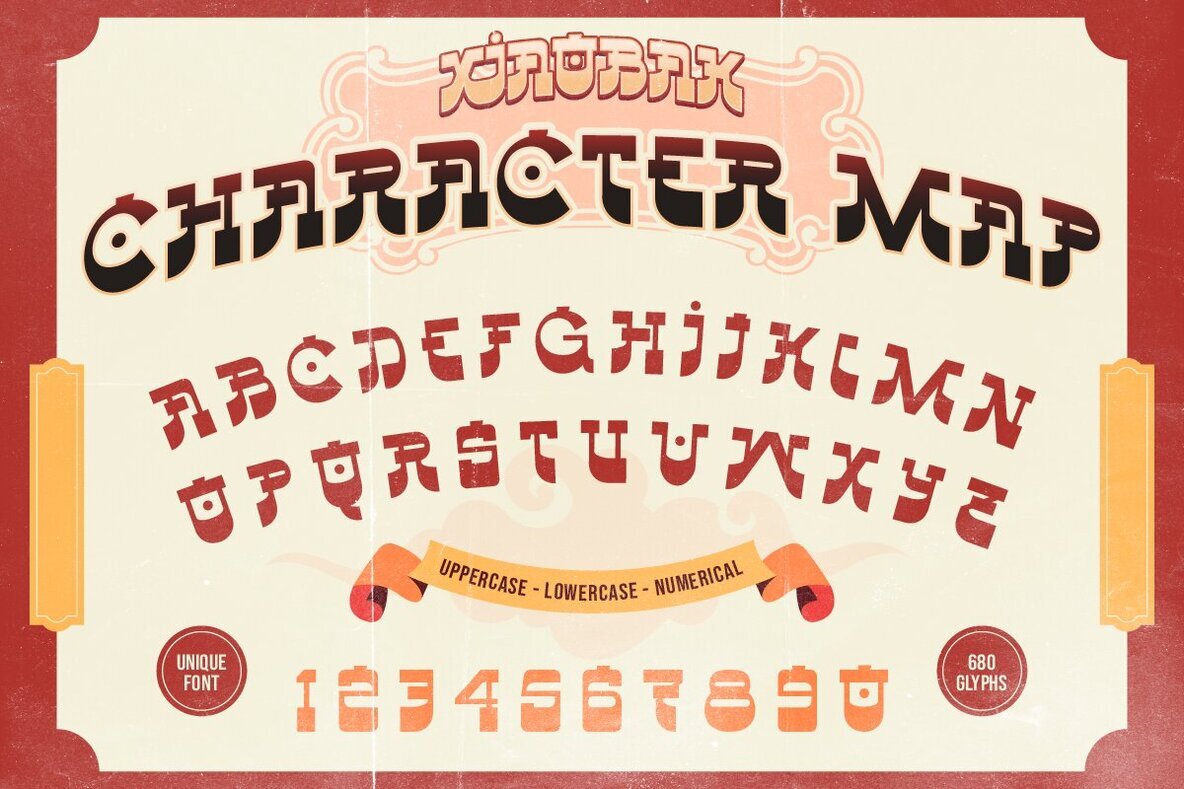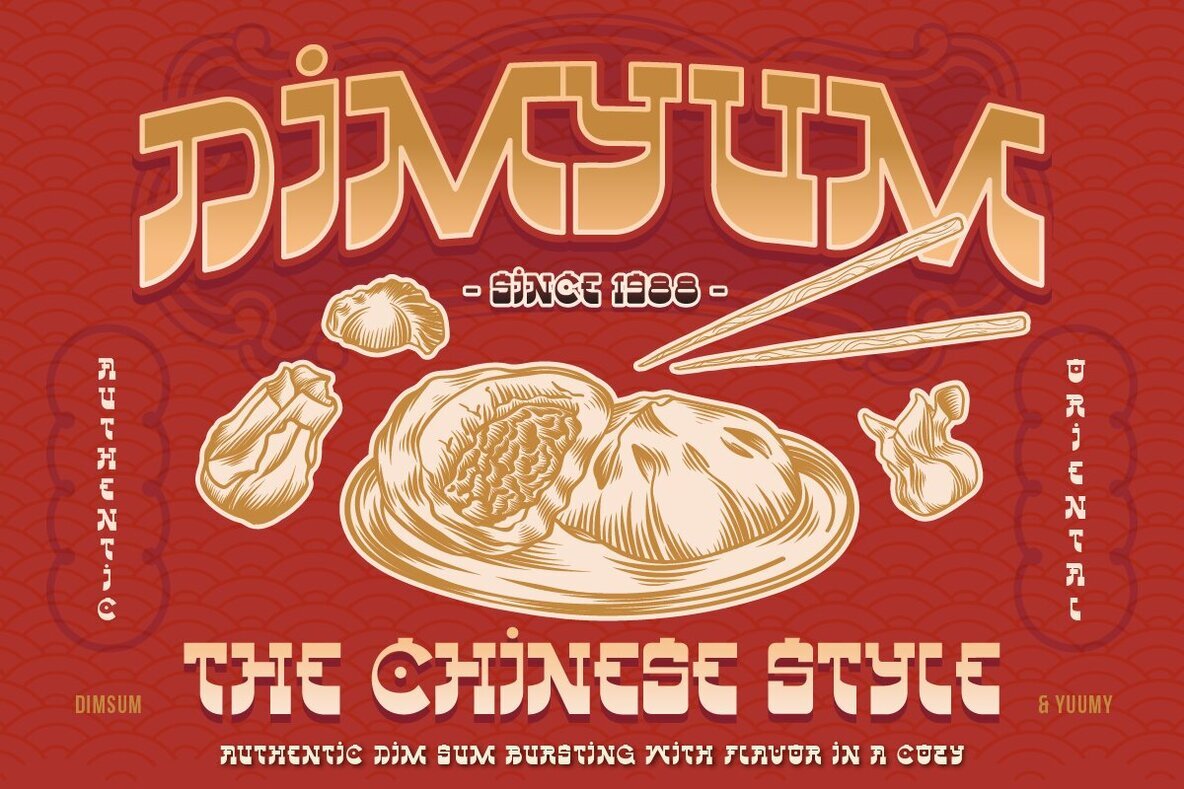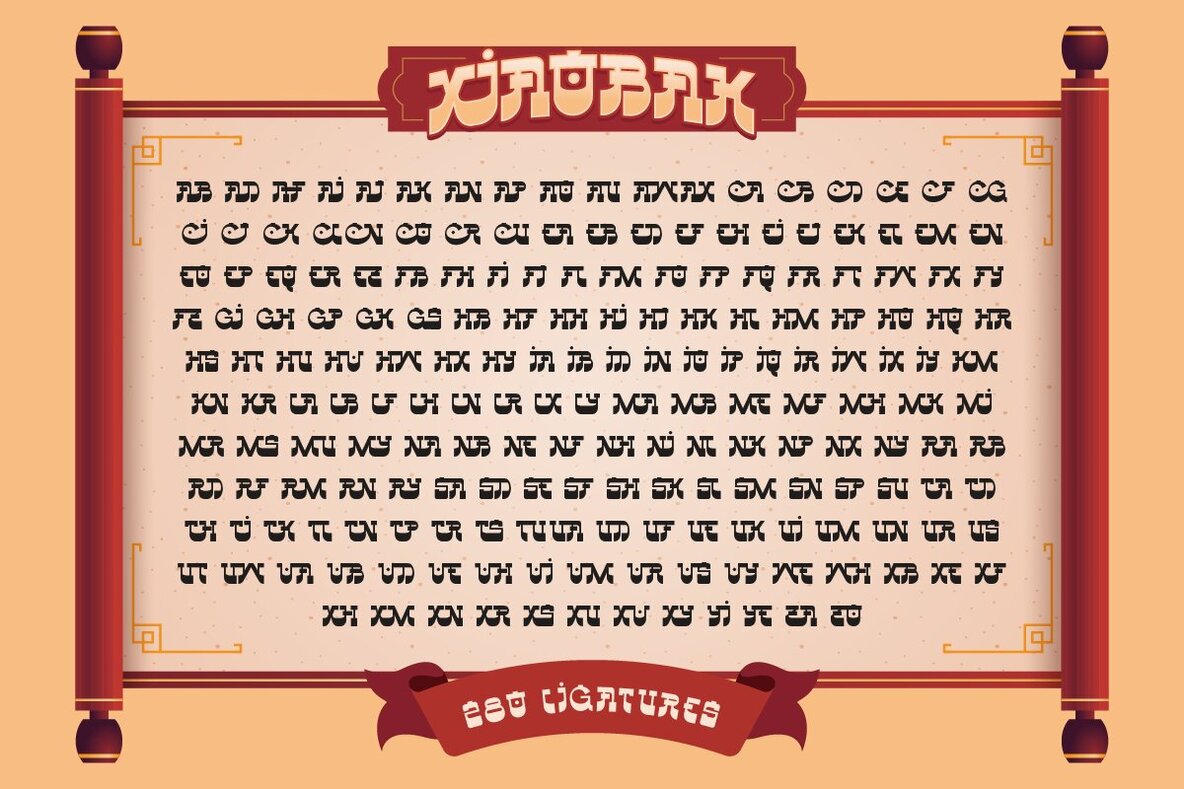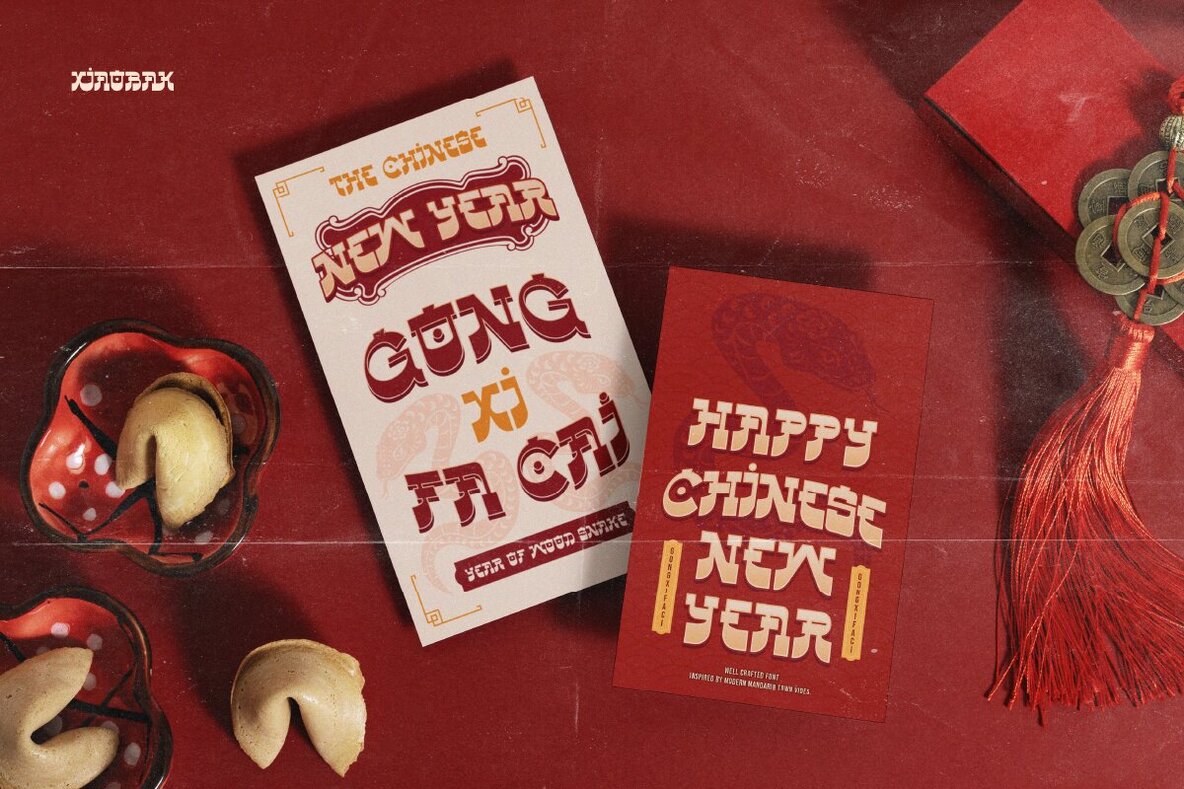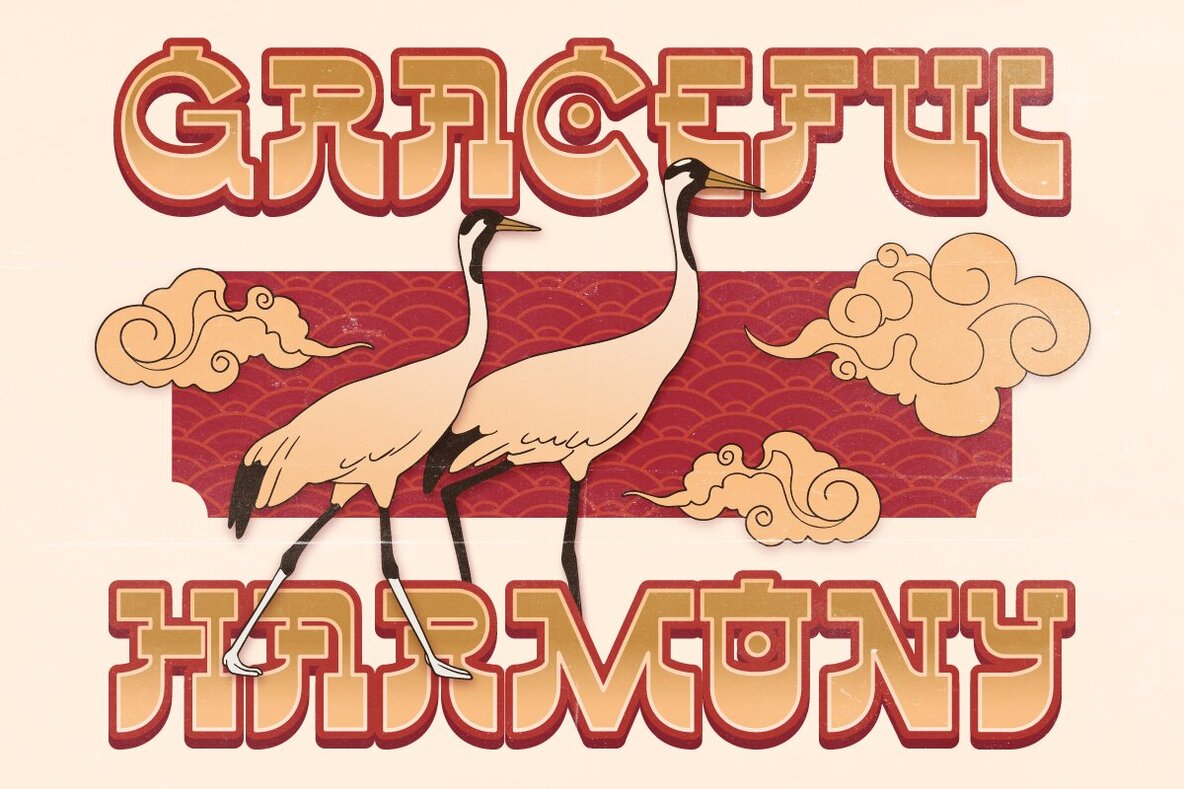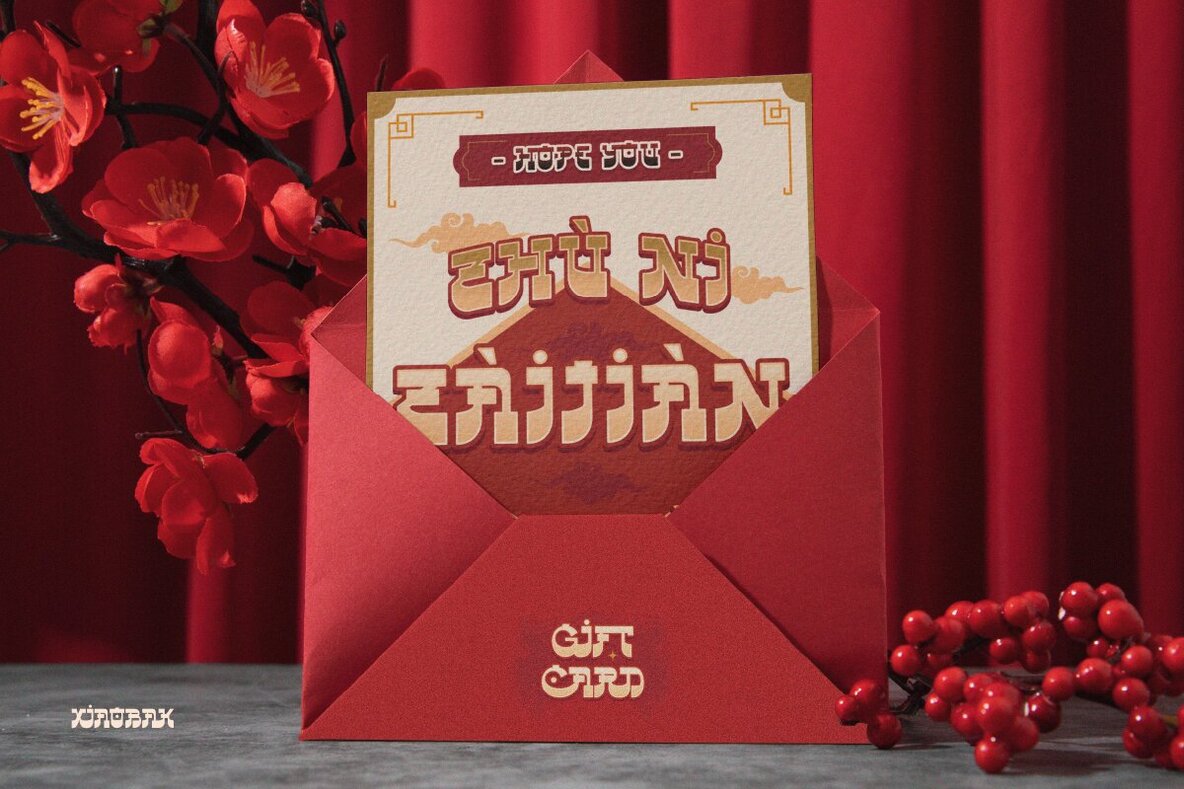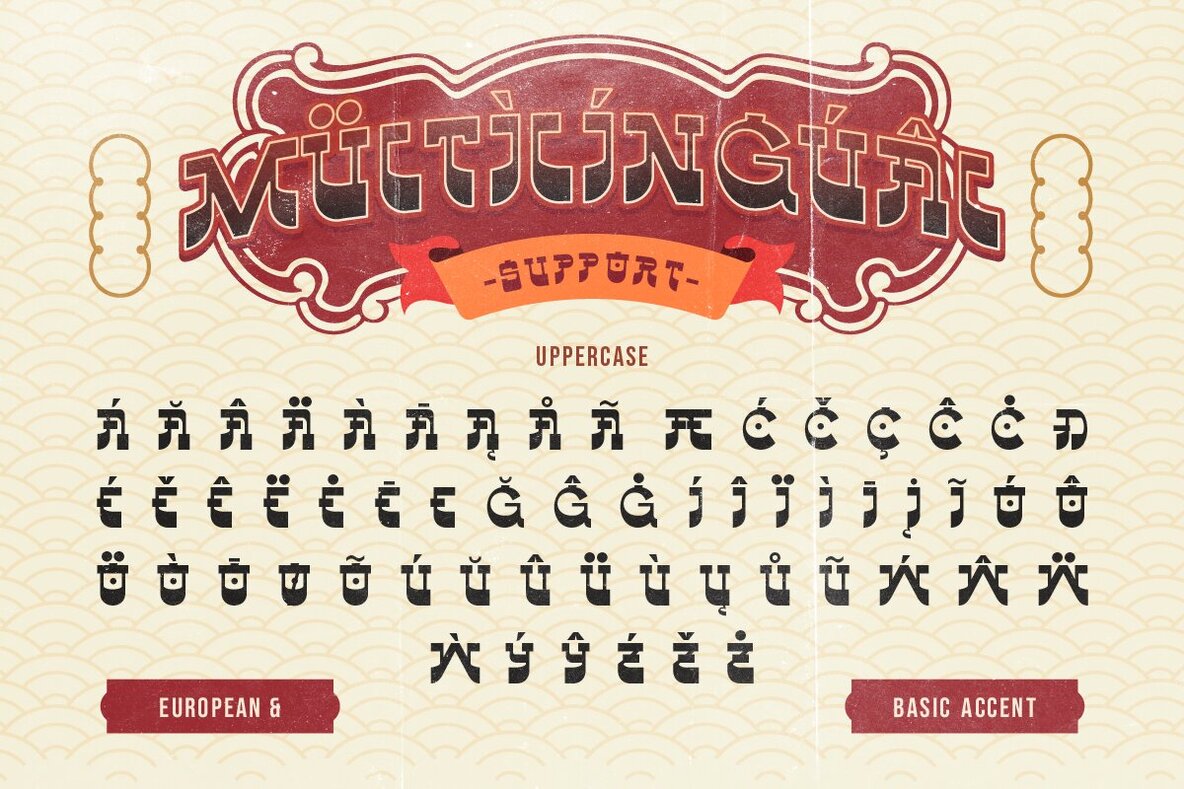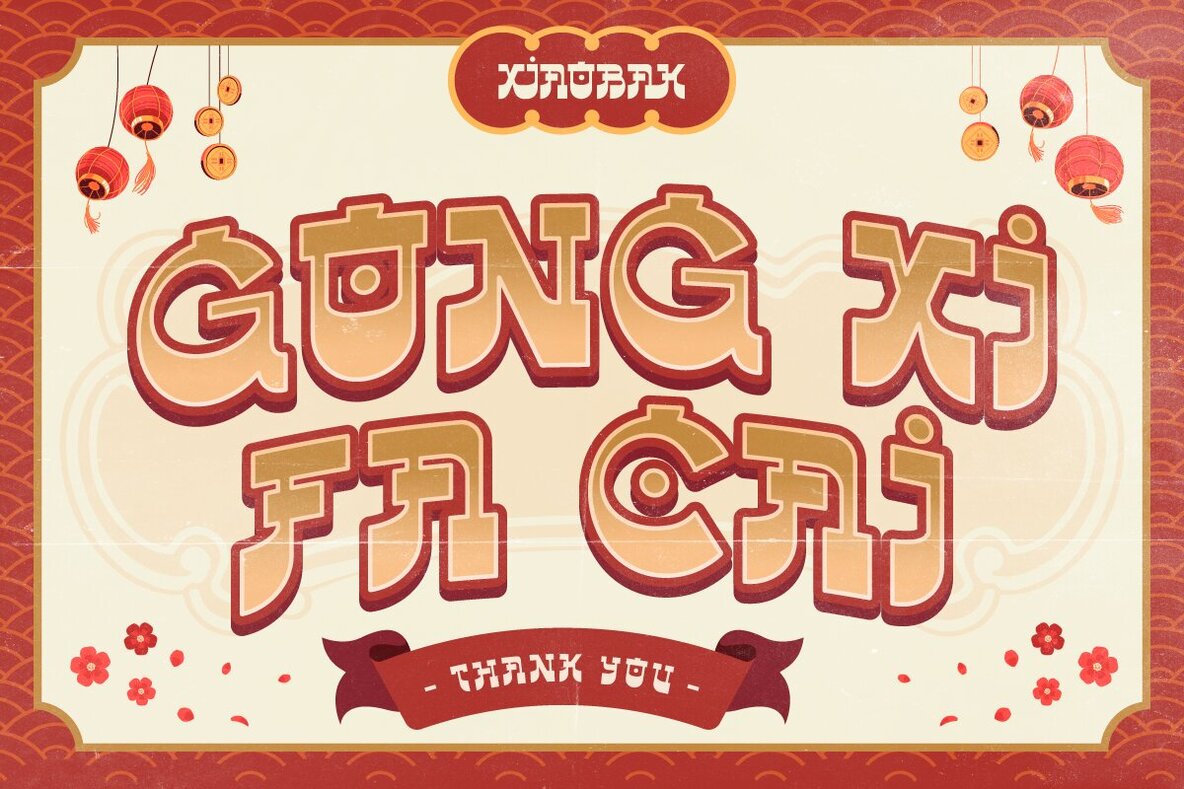
Xiaobak Font
Xiaobak Regular
Xiaobak is an exciting font inspired by the vibrant essence of modern mandarin town aesthetics. Its bold, energetic, and playful curves make it a standout choice for designers looking to infuse a touch of Chinese flair into their projects. With unique ligatures and a multilingual accent, Xiaobak offers versatility and appeal for various design needs.
Perfectly suited for invitations, urban fashion, food and beverage branding, posters, and any project requiring a mandarin style, Xiaobak delivers an instantly recognizable look. Its comprehensive set includes uppercase and lowercase letters, numbers, punctuation, alternates, and ligatures, all presented in a distinct Xiaobak character map. This font is your go-to for creating designs with a contemporary nod to Chinese culture.